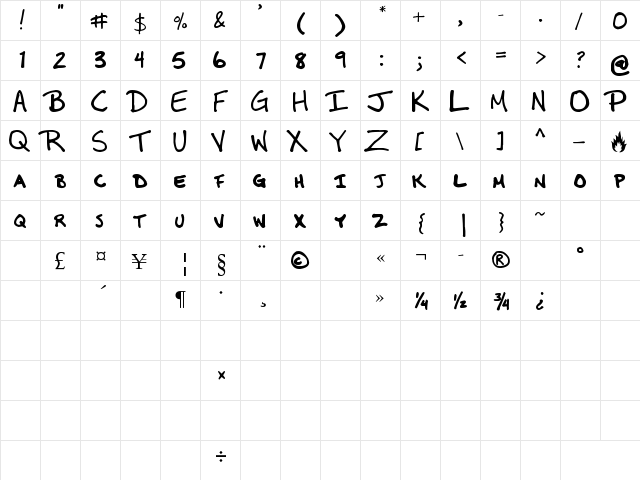
MBurnette Regular
Design Context for MBurnette Typeface
MBurnette is a composed and adaptable typeface that performs quietly and consistently across a wide range of design contexts.